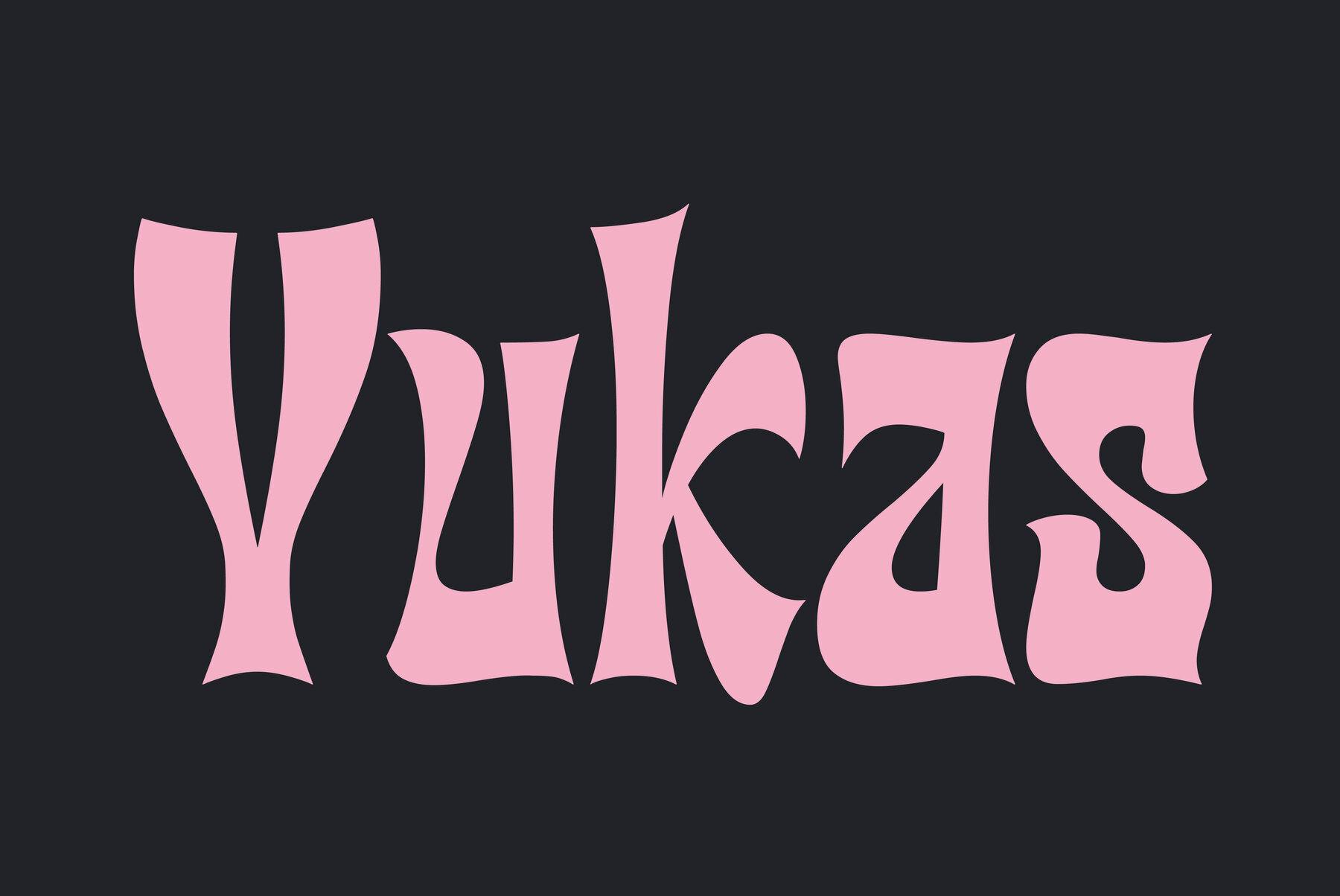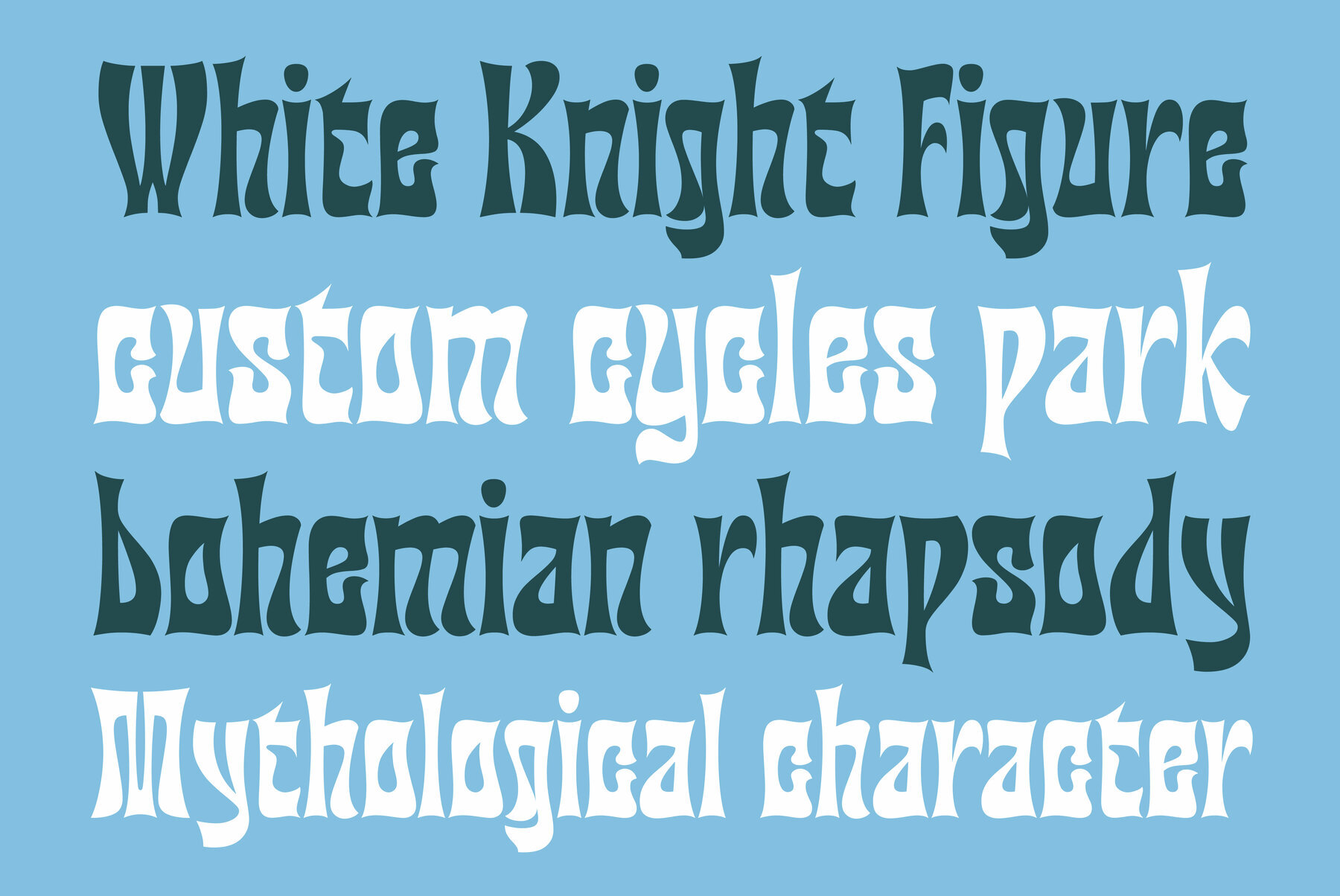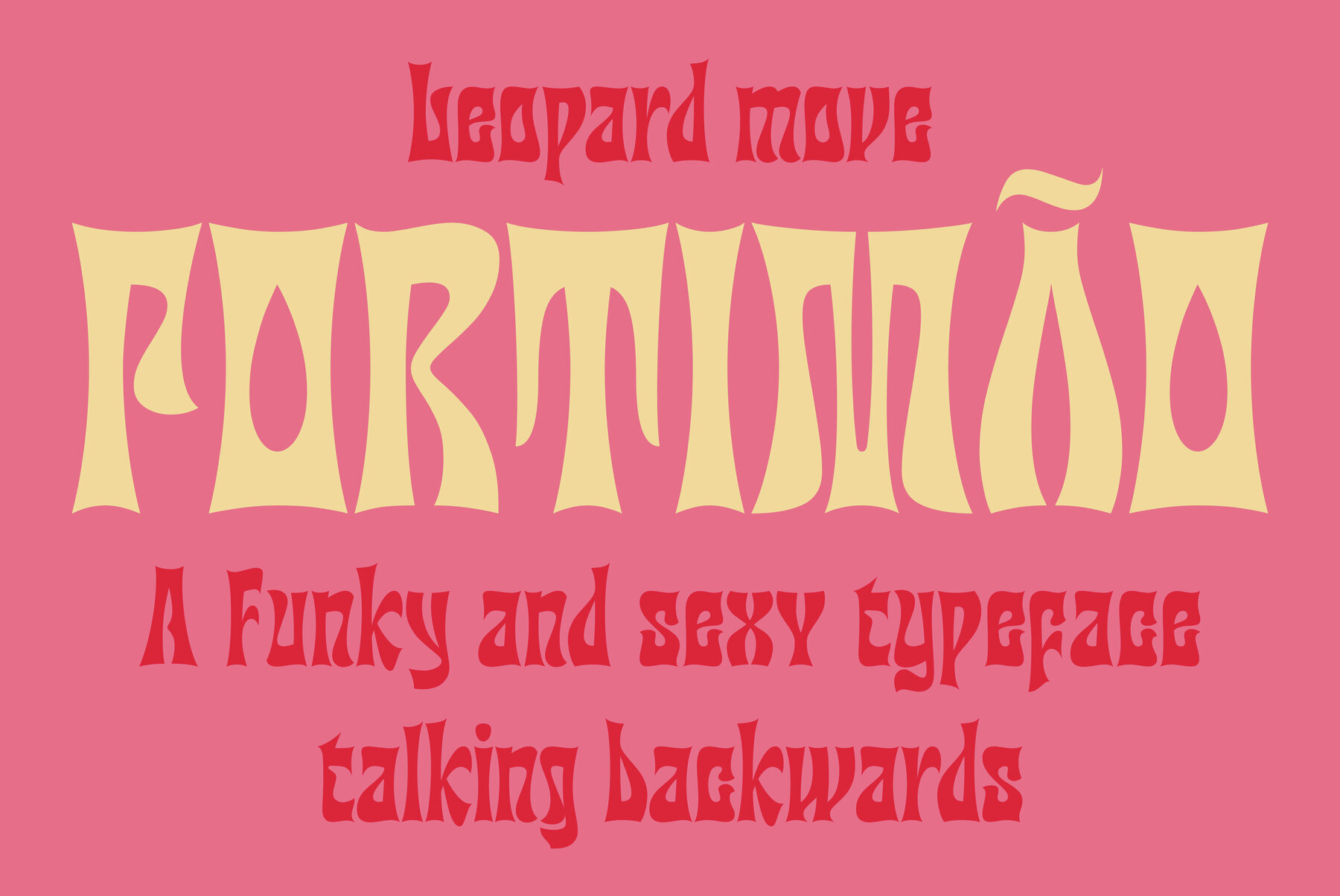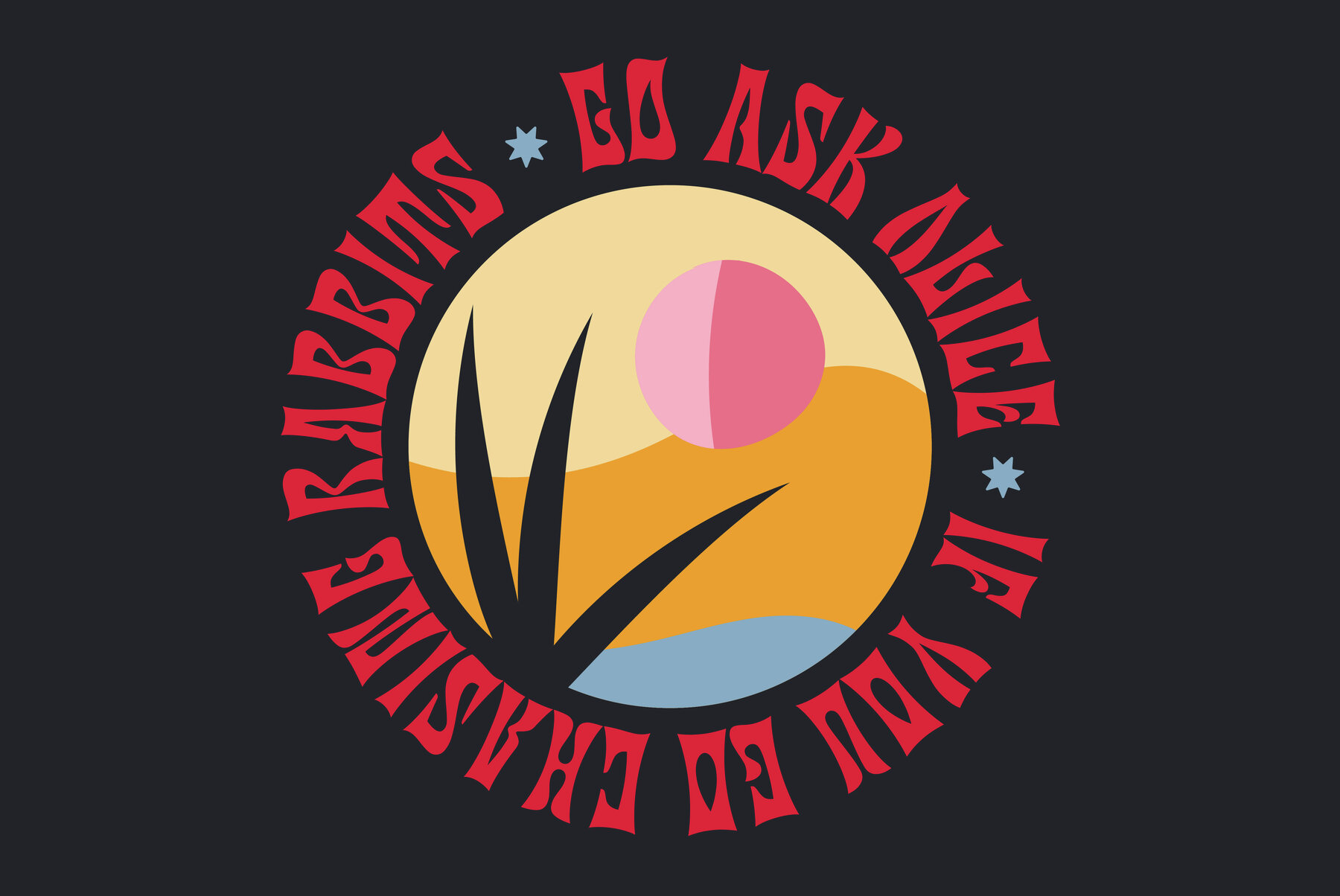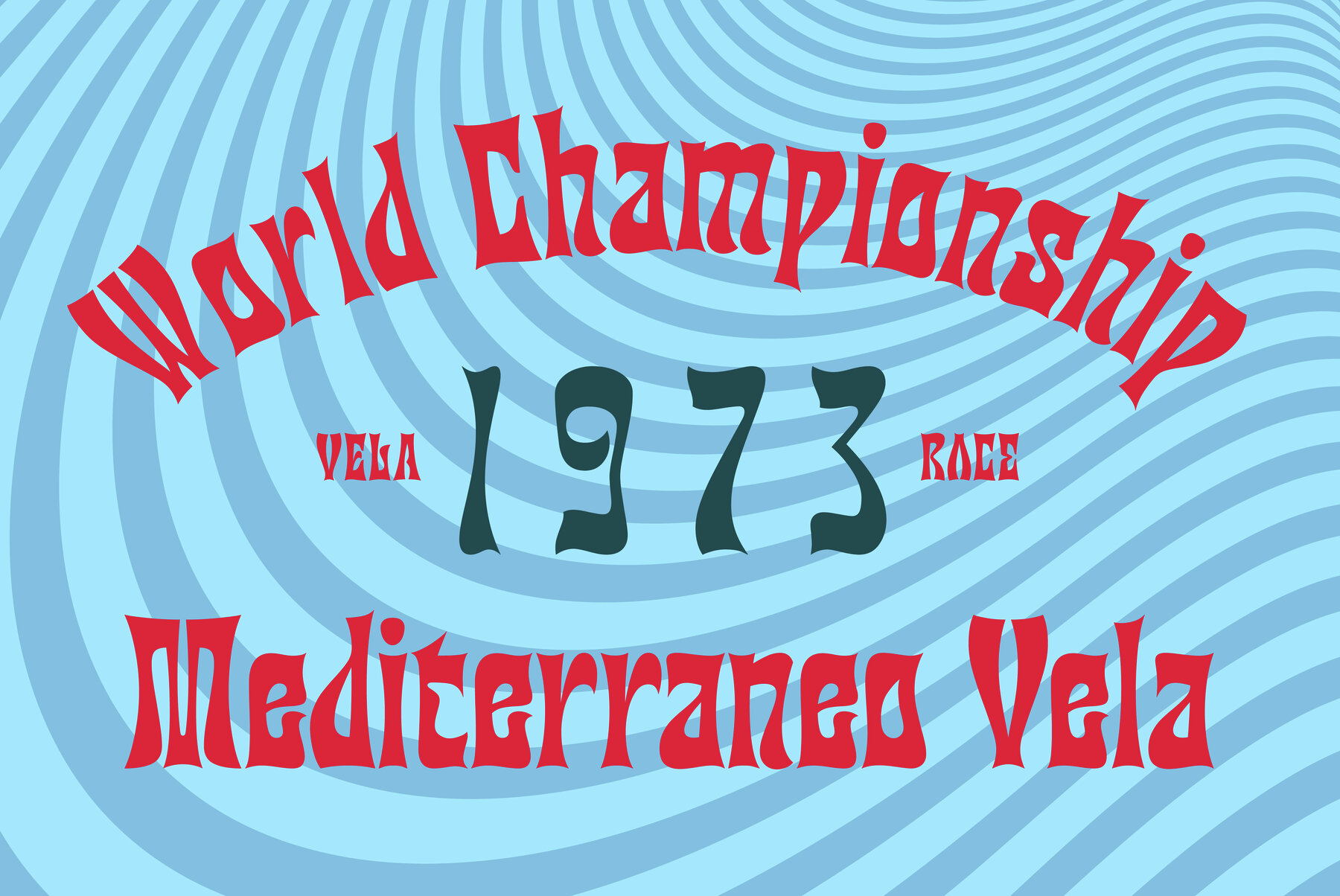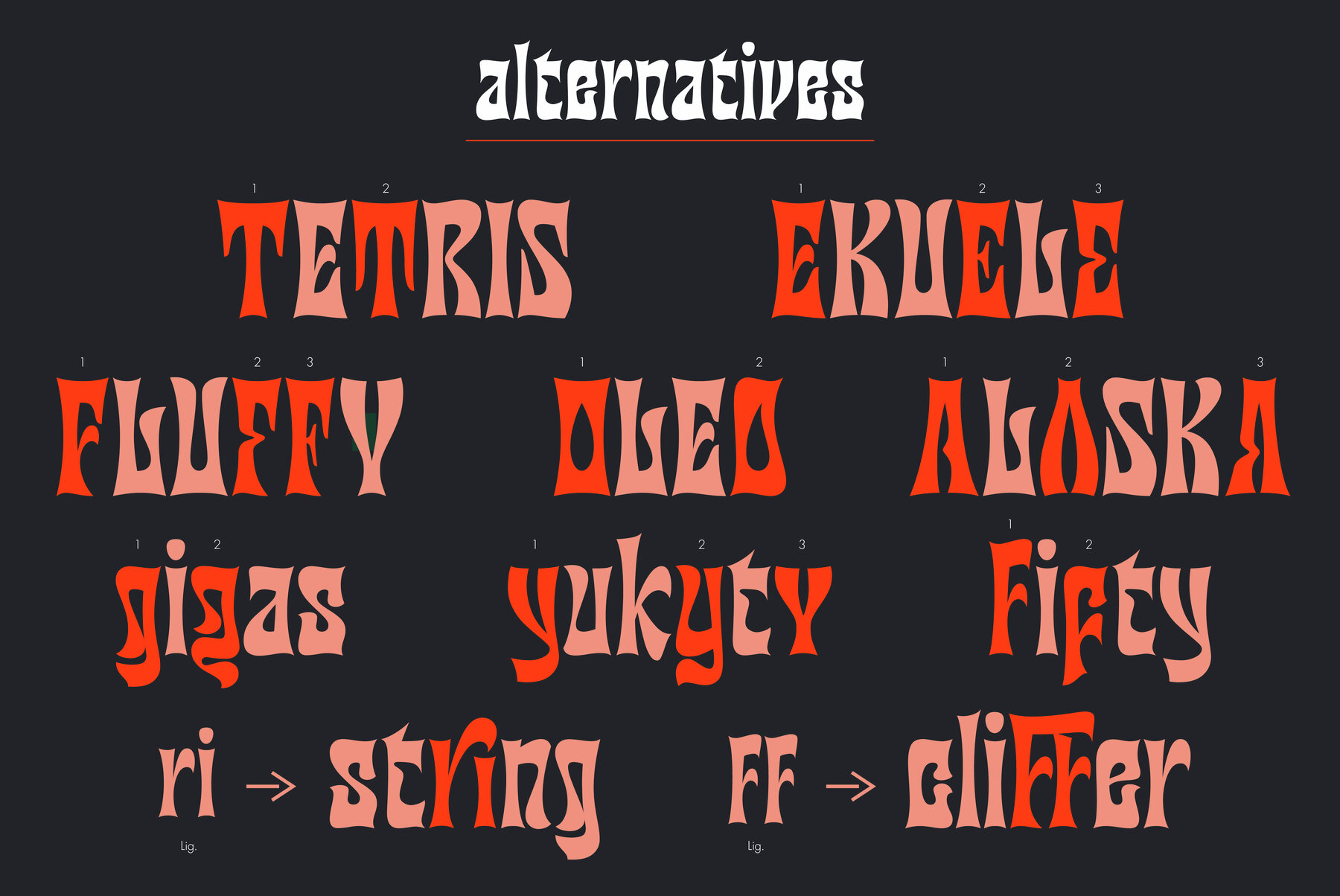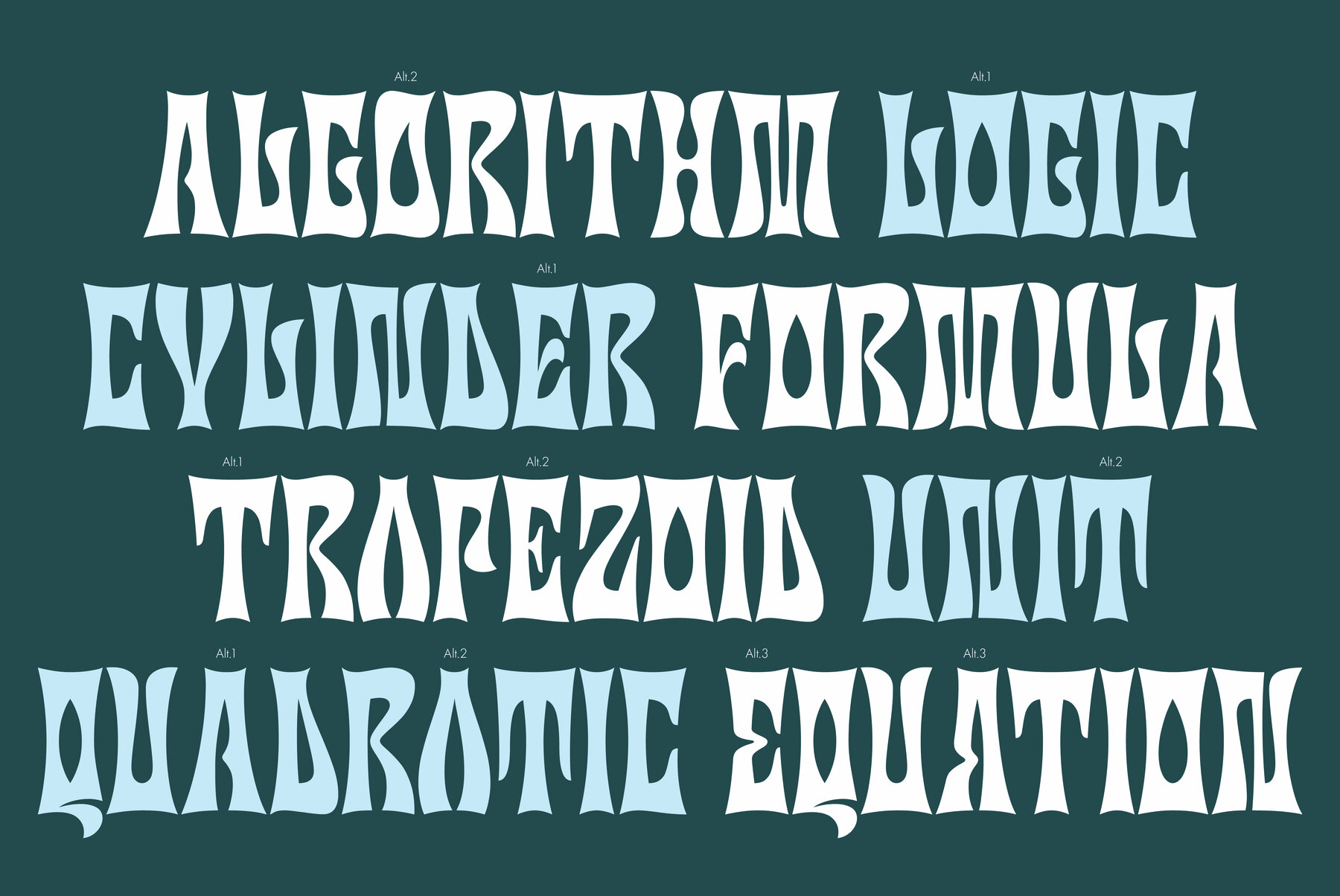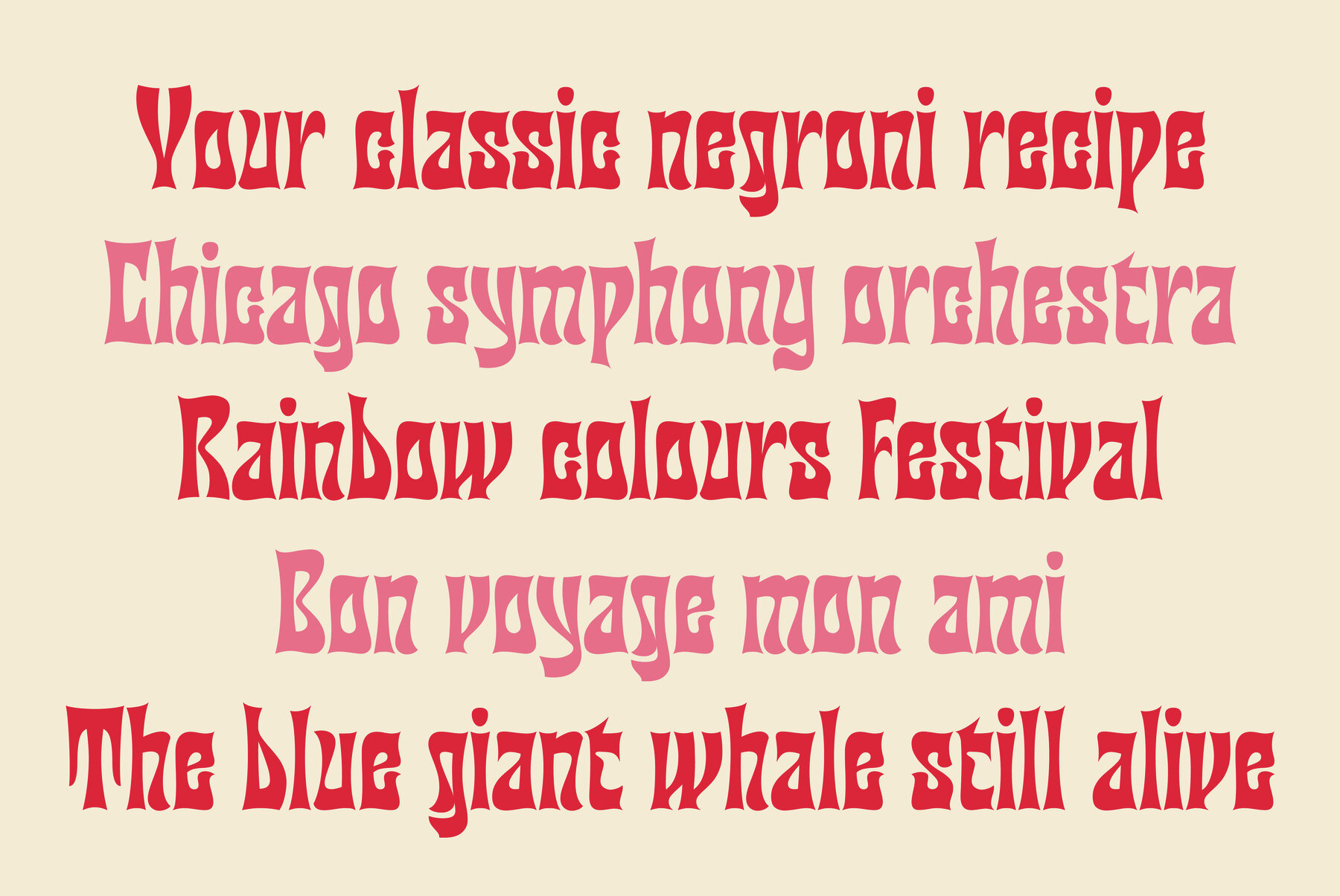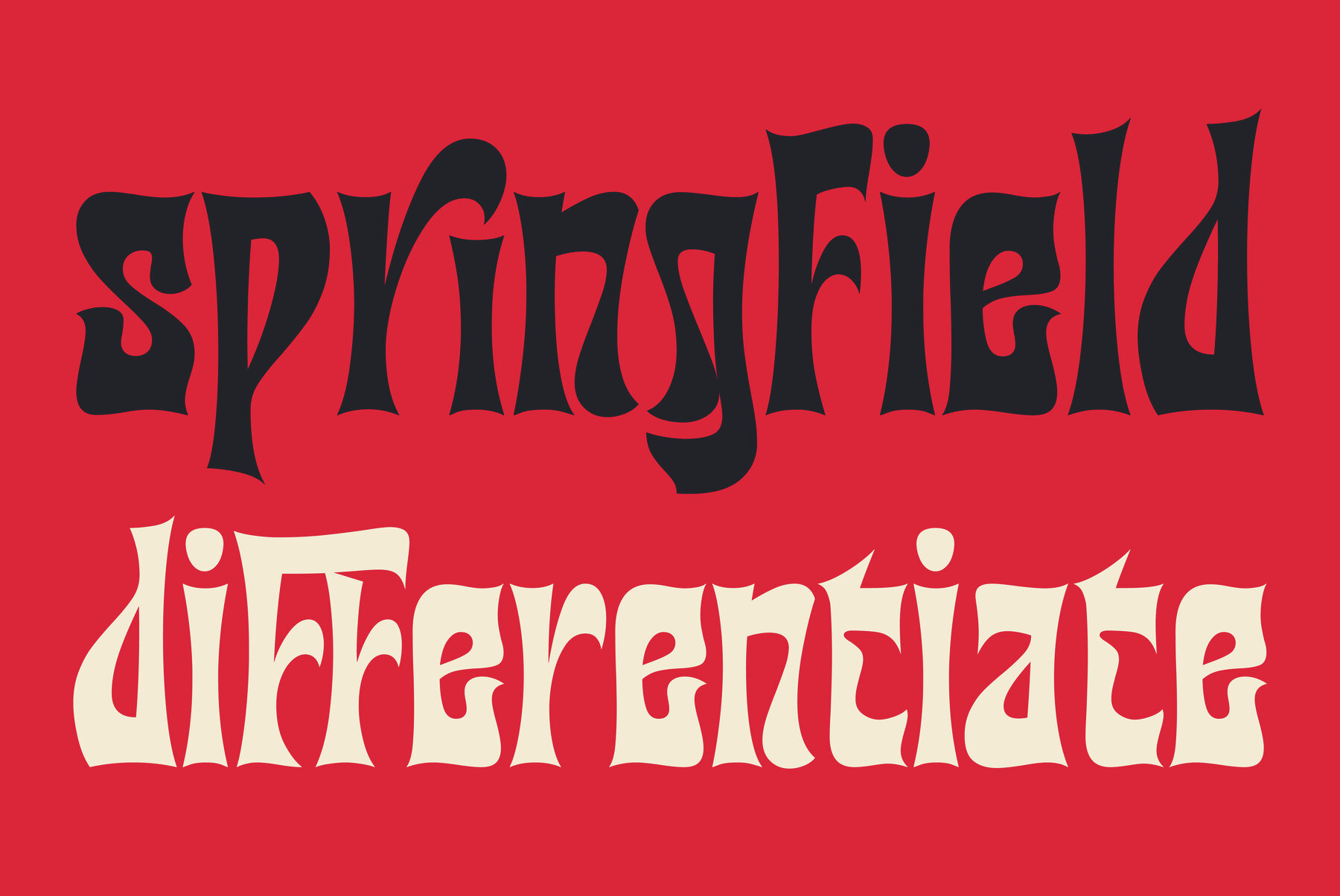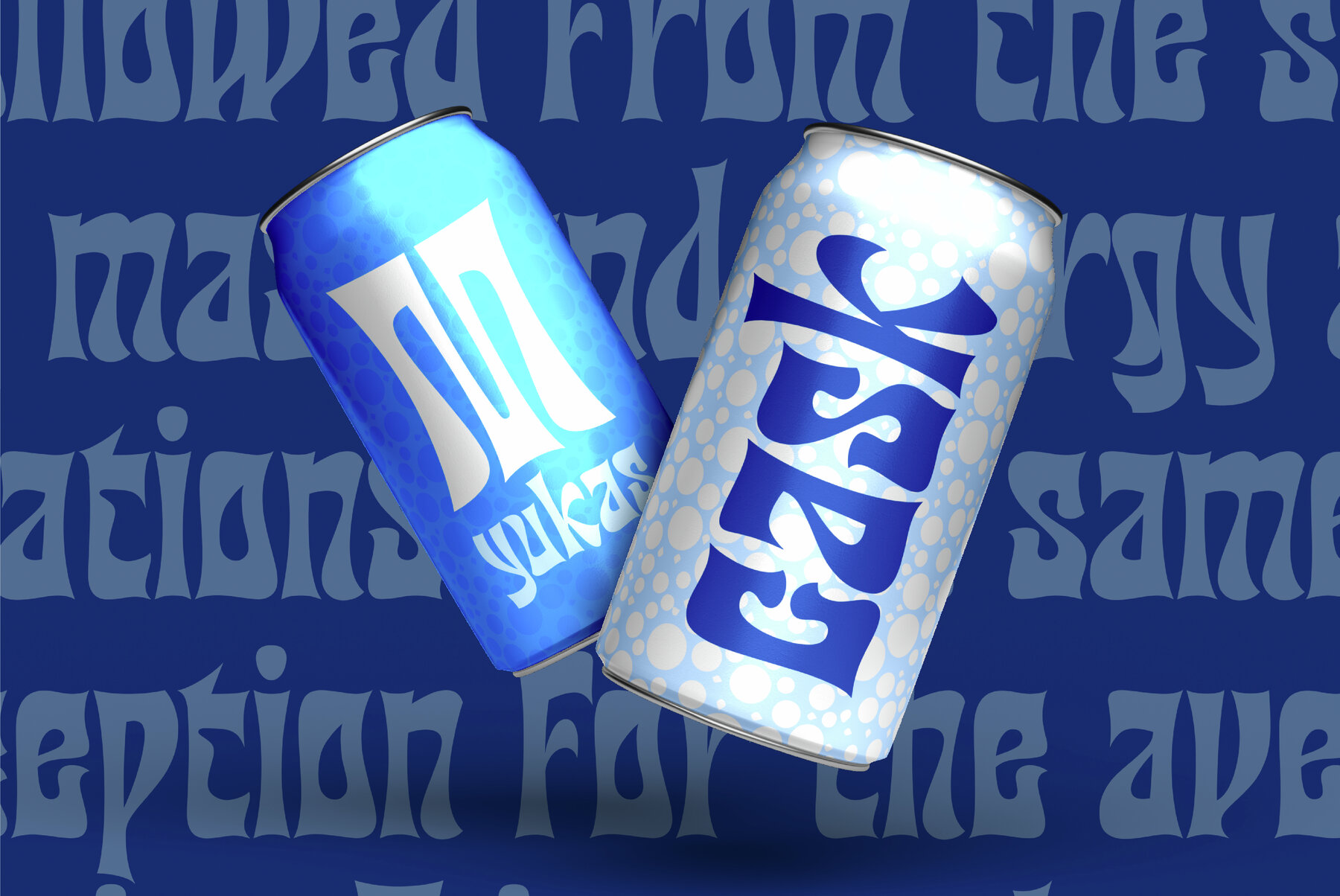
Yukas Font
Yukas Regular
Yukas is a funky and sexy typeface where the proportions are based on the optical balance between black strokes and white shapes. Ideal to enjoy on a large scale. It takes its references from the psychedelic movement and old school western movie posters with those big, heavy capital letters.Includes several Open Type alternatives to customize your design however you want.